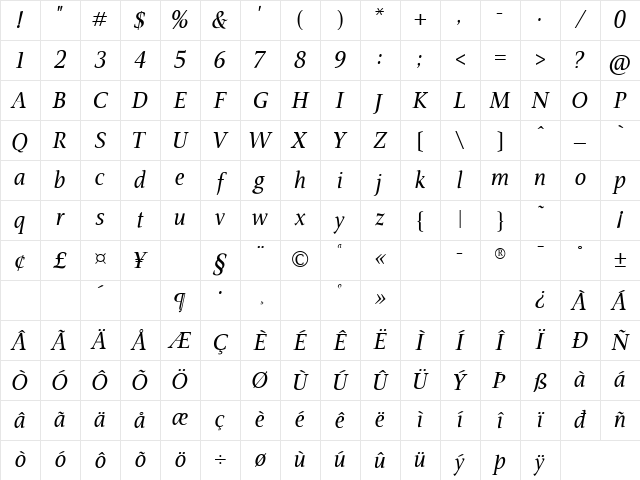
AIVeritas Italic Free Font
AIVeritas Italic
Foundry: A*I Veritas -Italic by Brian Sooy
Design Context for AIVeritas
AIVeritas is a composed and adaptable typeface that performs quietly and consistently across a wide range of design contexts. The slanted form adds forward momentum and visual energy.